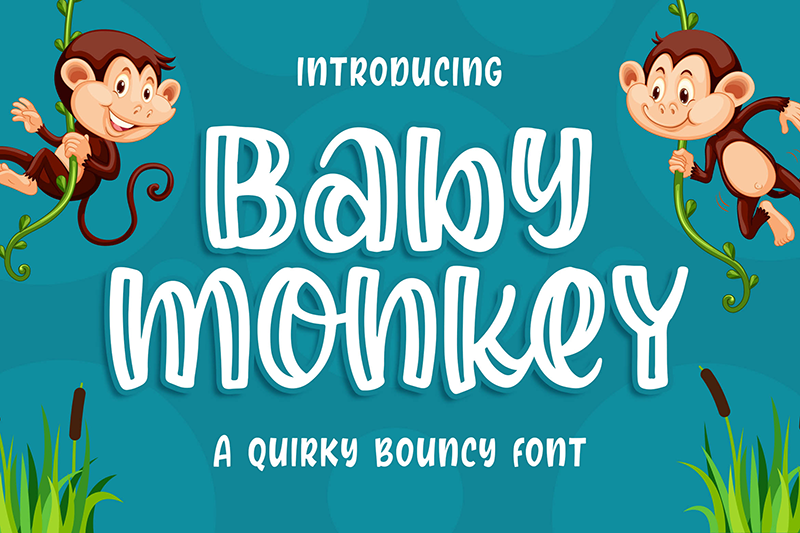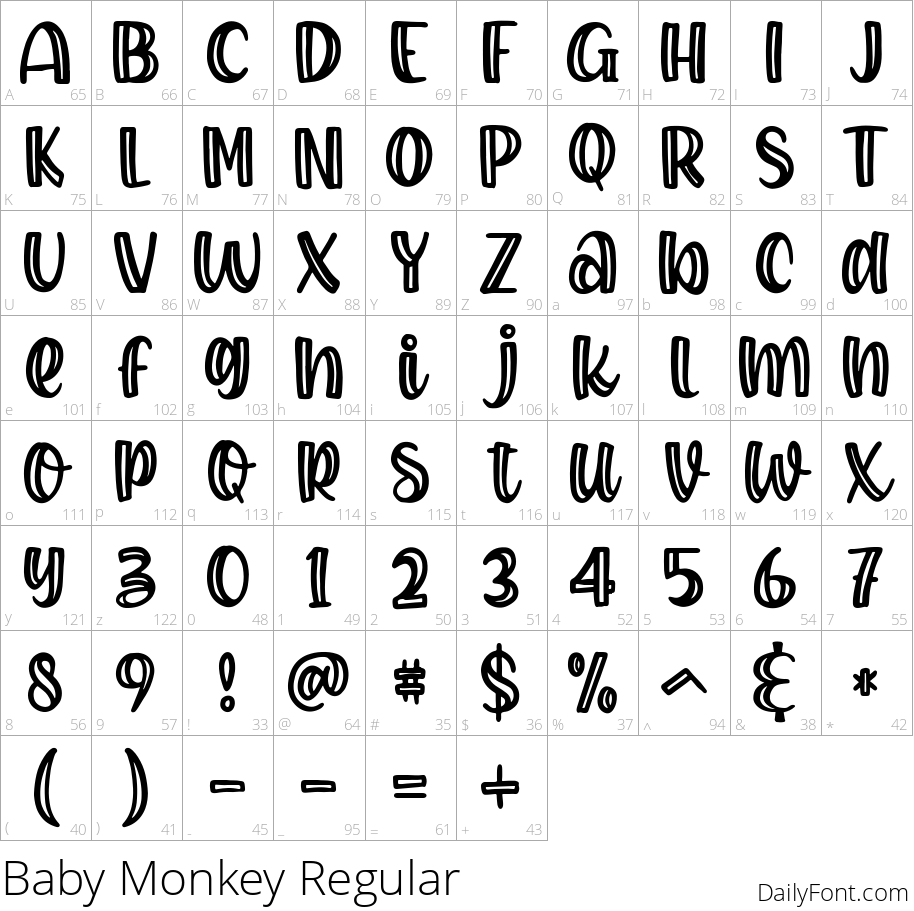
Baby Monkey
Unleash Whimsy and Fun with Hand-Drawn Fonts
Are you searching for a playful, kid-friendly font that adds an extra layer of creativity to your designs? Look no further than our curated selection of hand-drawn fonts that capture the essence of childhood wonder. Inspired by the innocence and curiosity of youth, these fonts are perfect for projects aimed at children, such as educational materials, children's books, and school initiatives.
Key Features:
- Whimsical and quirky design elements
- Hand-drawn feel with imperfect edges and textures
- Perfectly imperfect, adding to its charm and character
- Ideal for creating a sense of playfulness and curiosity
Use Cases:
- Educational materials, such as workbooks, posters, and activity sheets
- Children's books, including illustrations and typography
- School projects, like reports, presentations, and newsletters
- Marketing campaigns targeting children or families